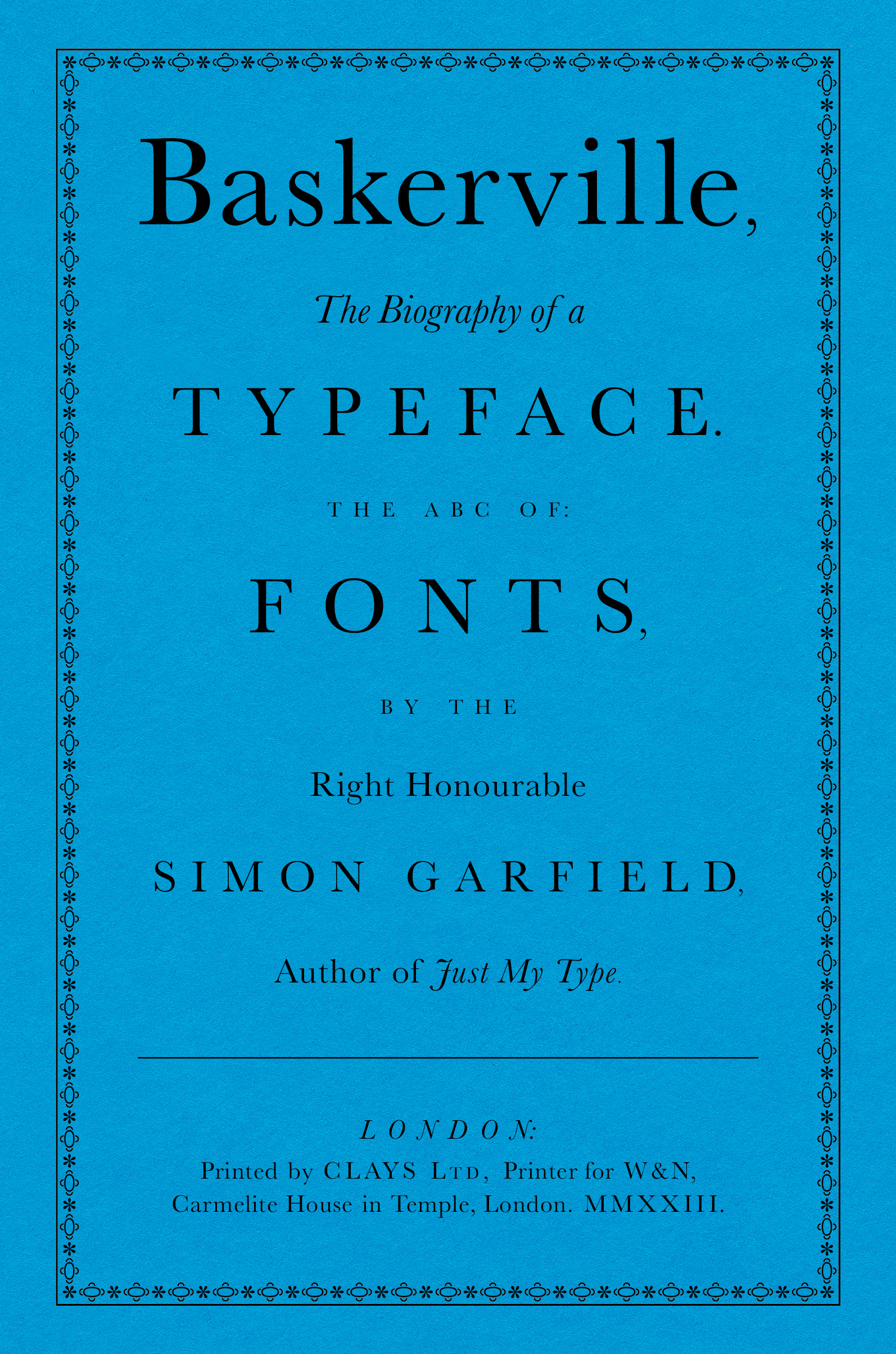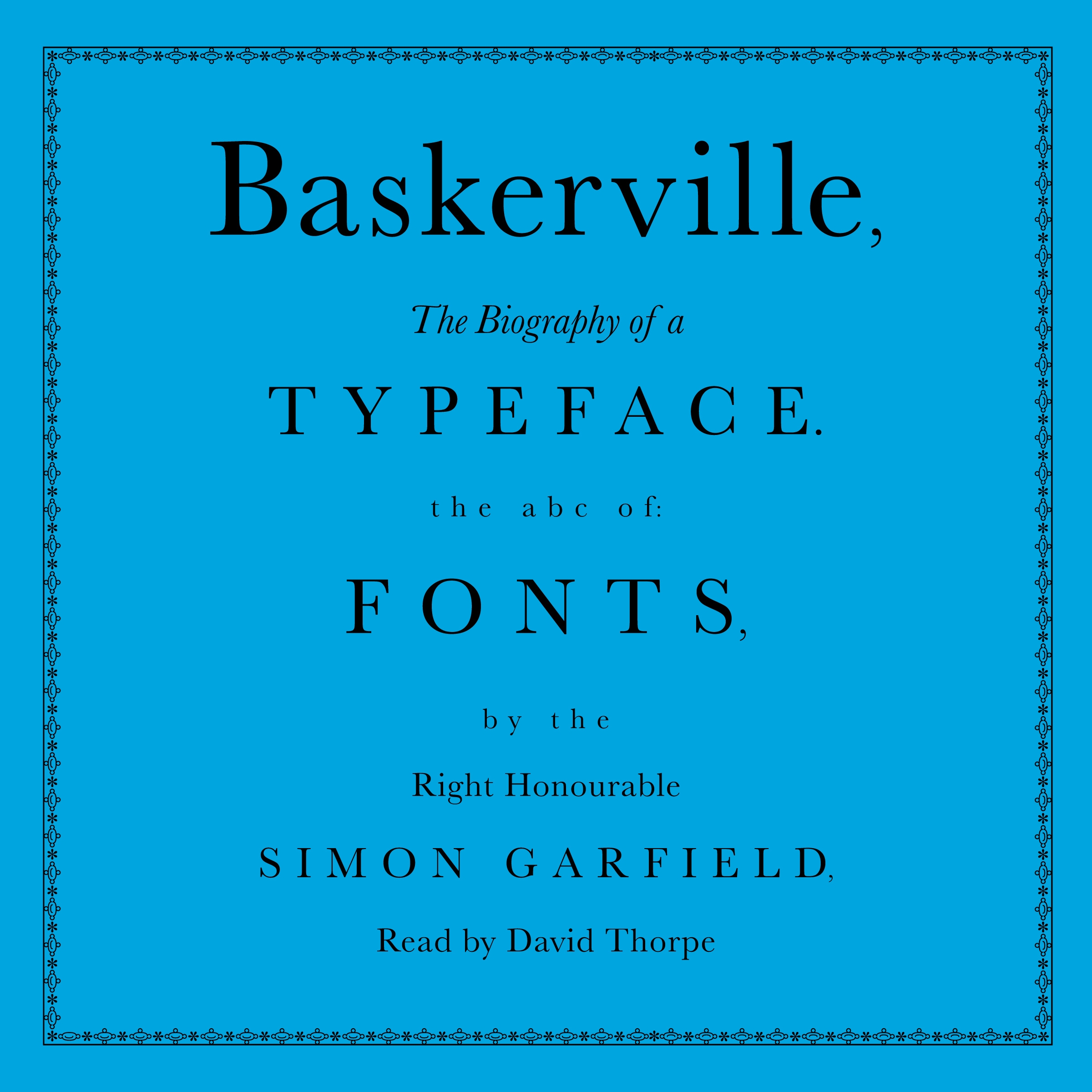
The classic elegant English typeface, still widely used as a book text more than 250 years since its creation. Baskerville is a transitional design, poised between the first metal types and modern styles, notable for its combination of fat and thin strokes. When it was first used there was genuine concern that it would damage readers' eyes.
John Baskerville was a maverick lacquer maker and printer in Birmingham, a flamboyant dresser, an important figure in the Enlightenment. Though it earned him little money, he was obsessive about both his typeface and its appearance on the page, a perfectionism culminating in his magnificent Bible. The story encompasses one of the first powerful women of the printing world, his wife Sarah Baskerville, and the many typefaces the Baskervilles inspired. And it examines why John Baskerville's body was dug up and buried many times before it was finally allowed to rest in peace.